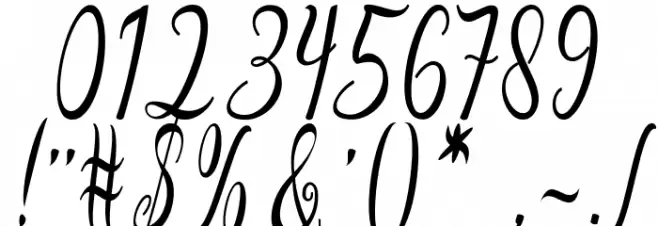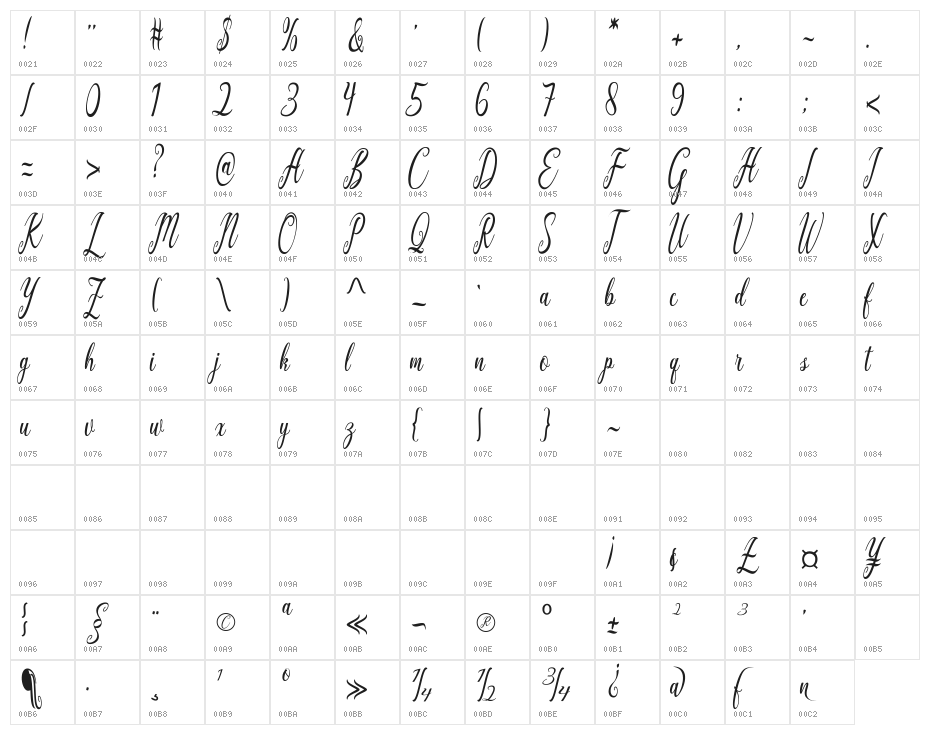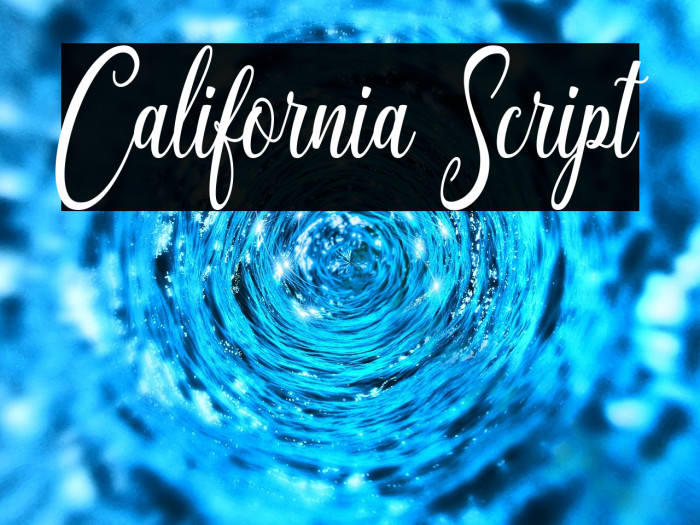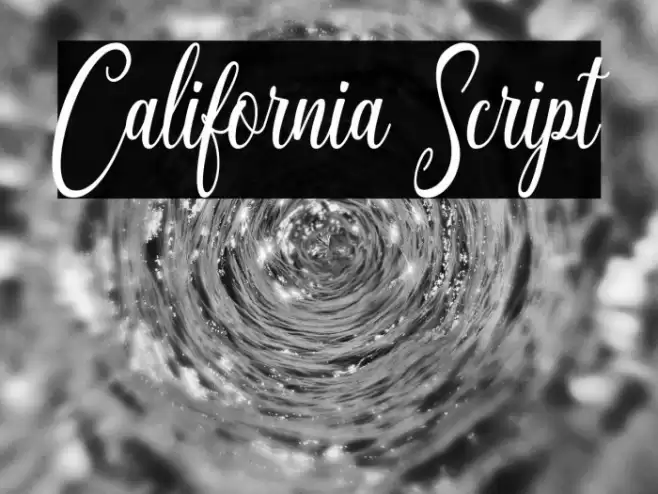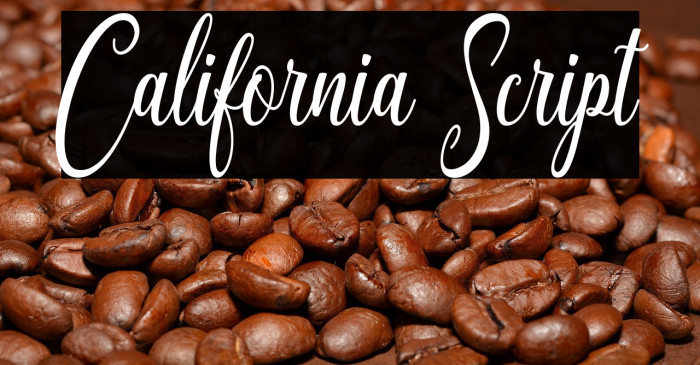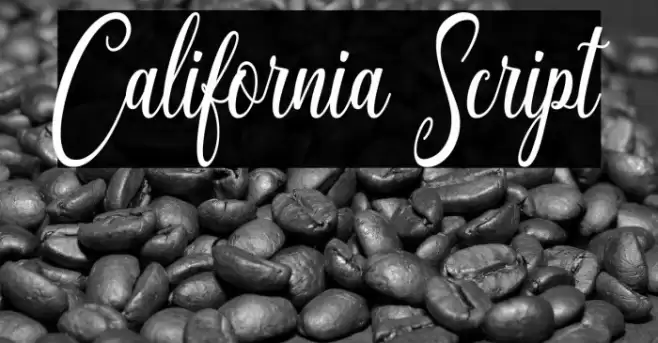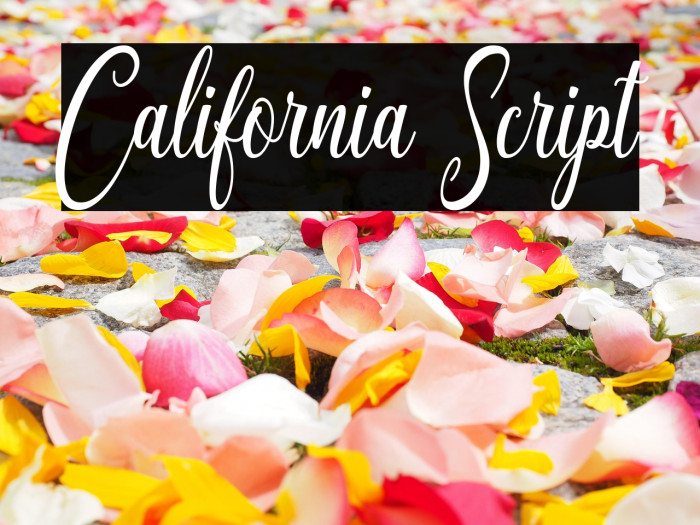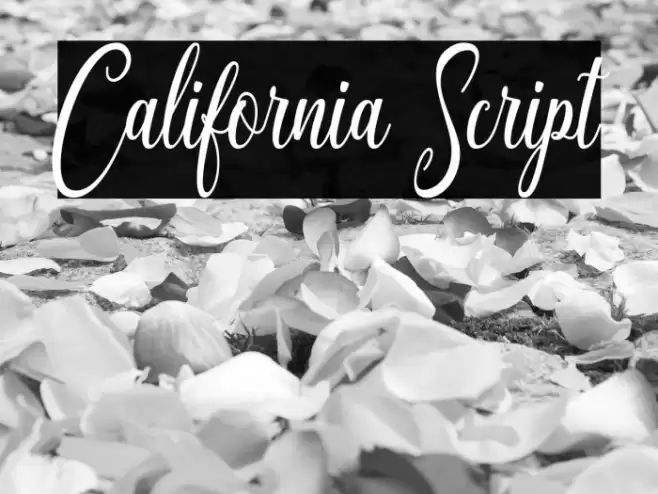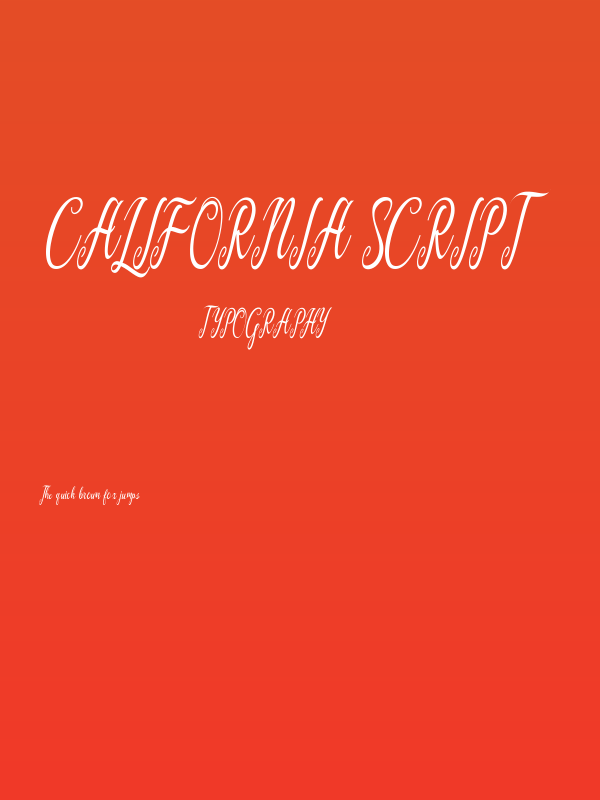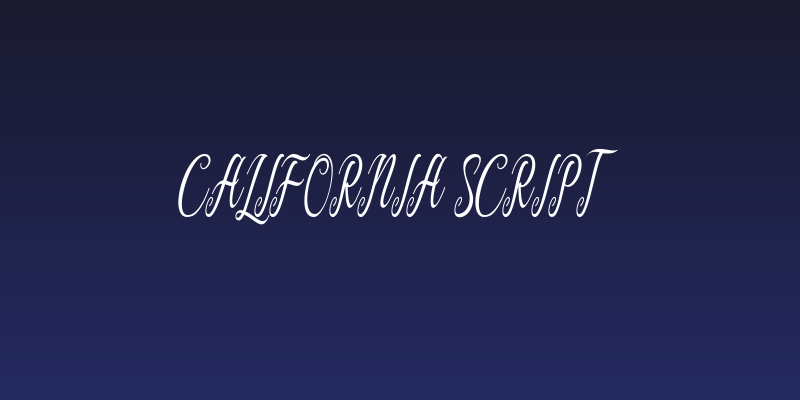
California Script Font
California Script Description
This elegant script font features flowing, interconnected characters with a classic and sophisticated appearance. The uppercase letters are ornate with sweeping curves and flourishes, while the lowercase letters maintain a smooth and fluid style. The numerals are consistent with the script's overall aesthetic, offering a harmonious blend of elegance and readability. Special characters are designed with similar attention to detail, enhancing the font's decorative appeal. This font is ideal for projects that require a touch of class and refinement.
| Proposed Projects | Wedding invitations, luxury branding, elegant stationery, and decorative signage. |